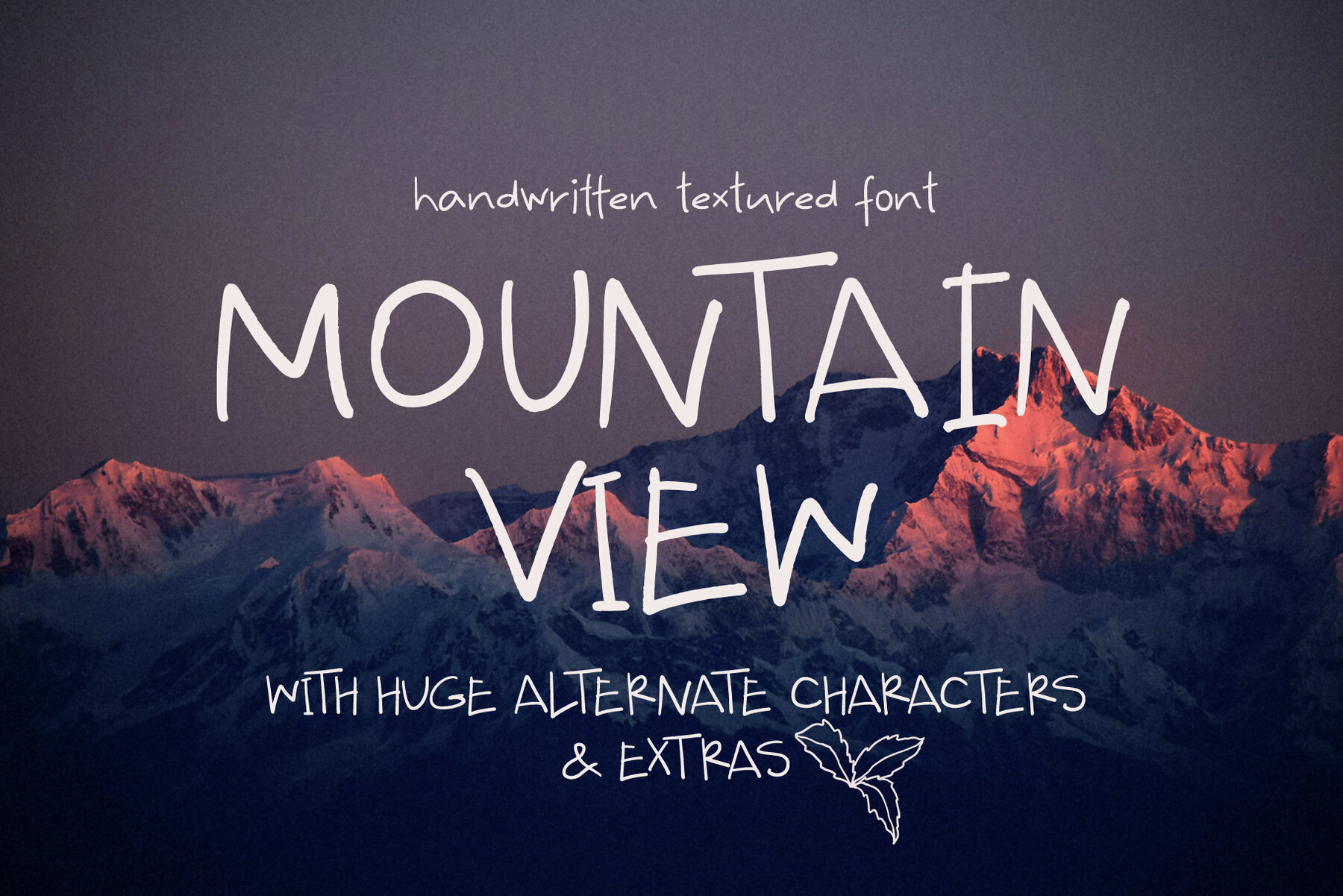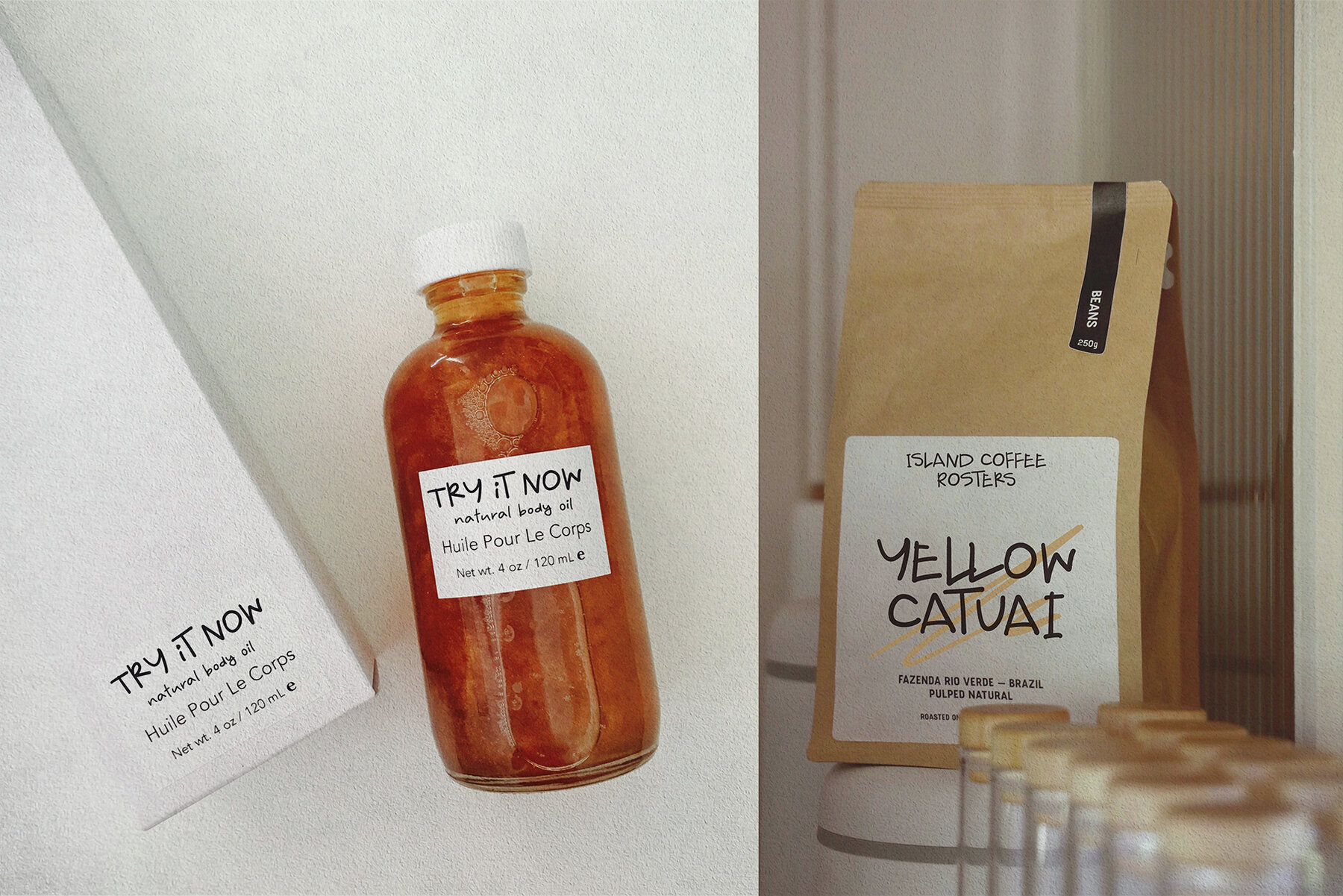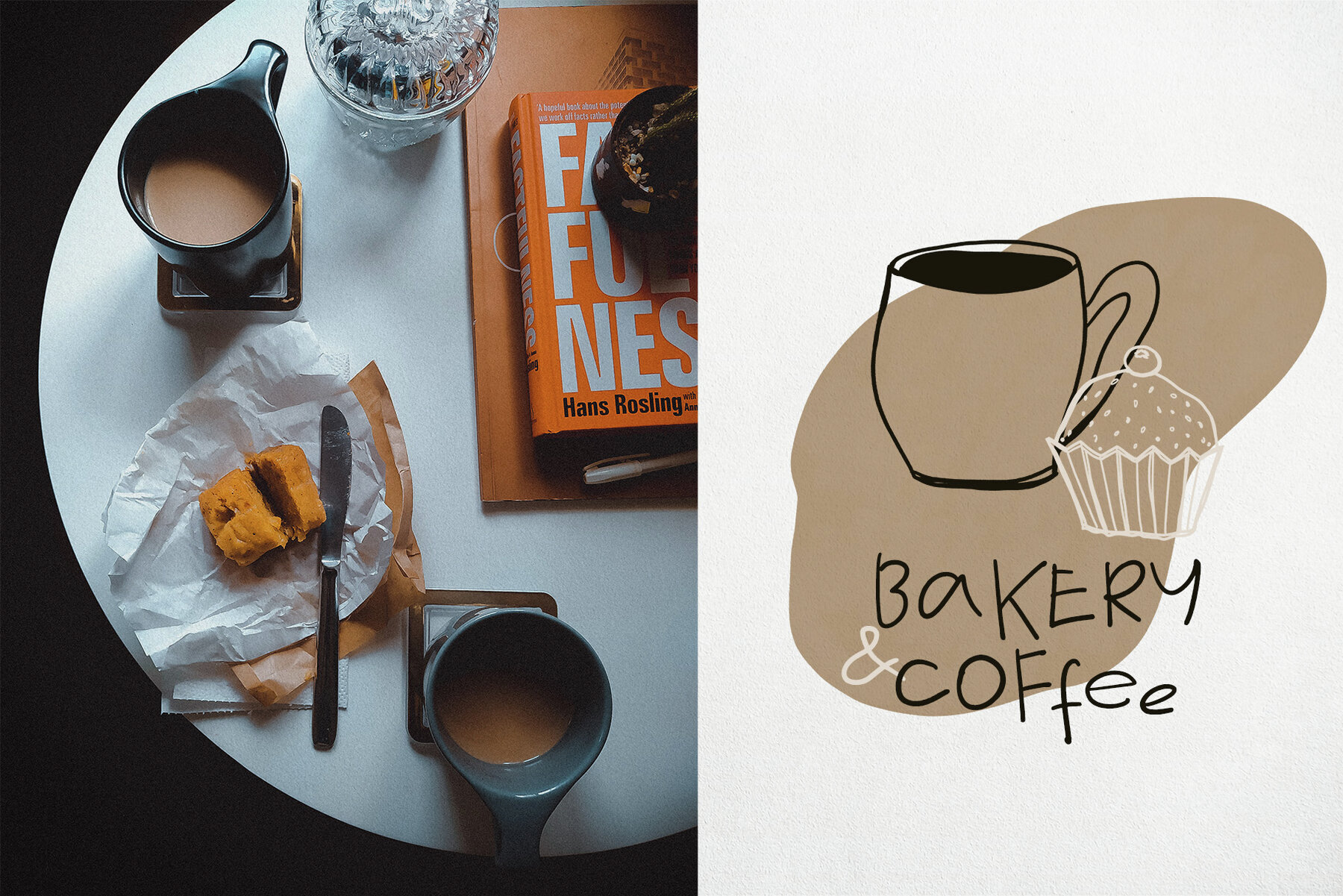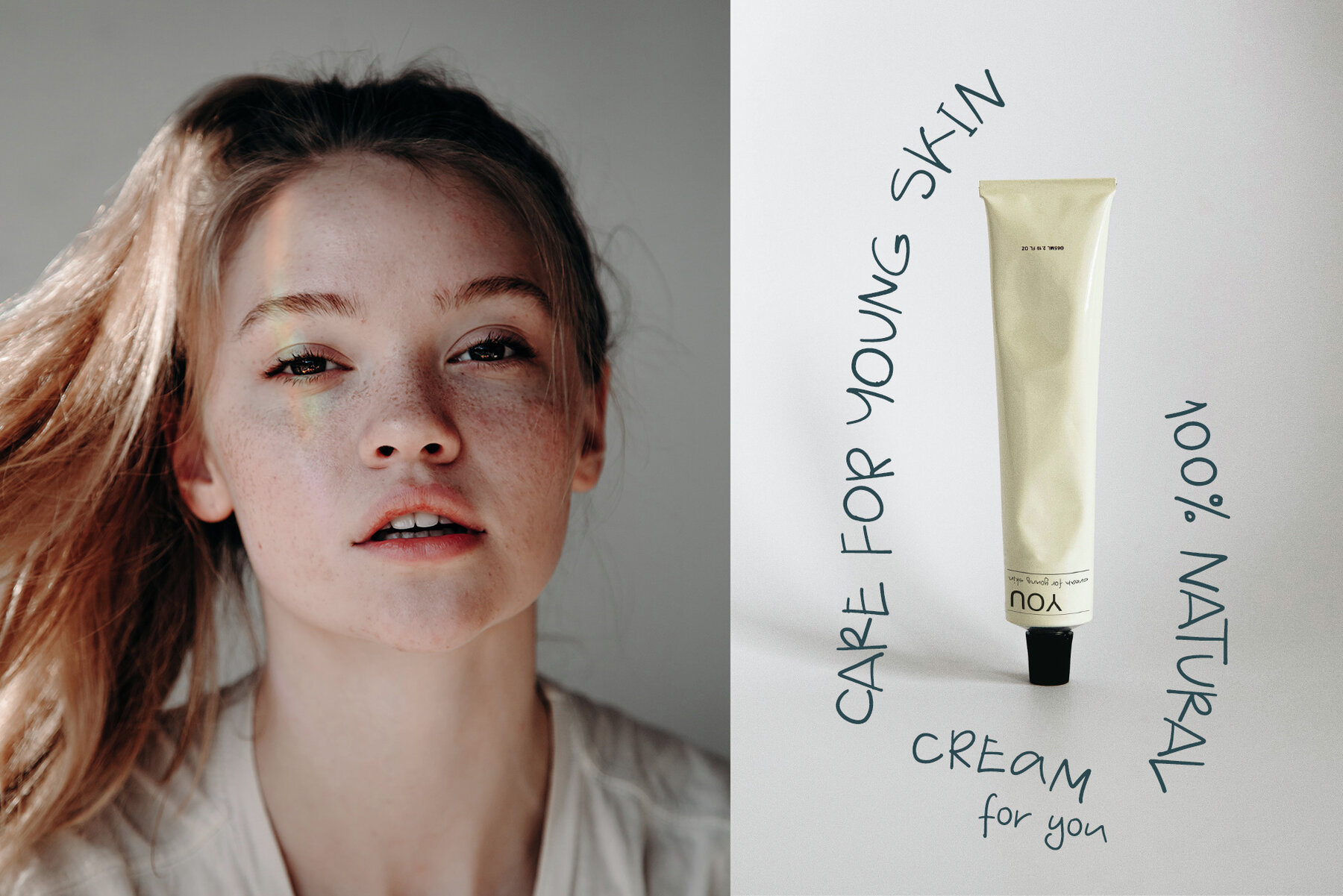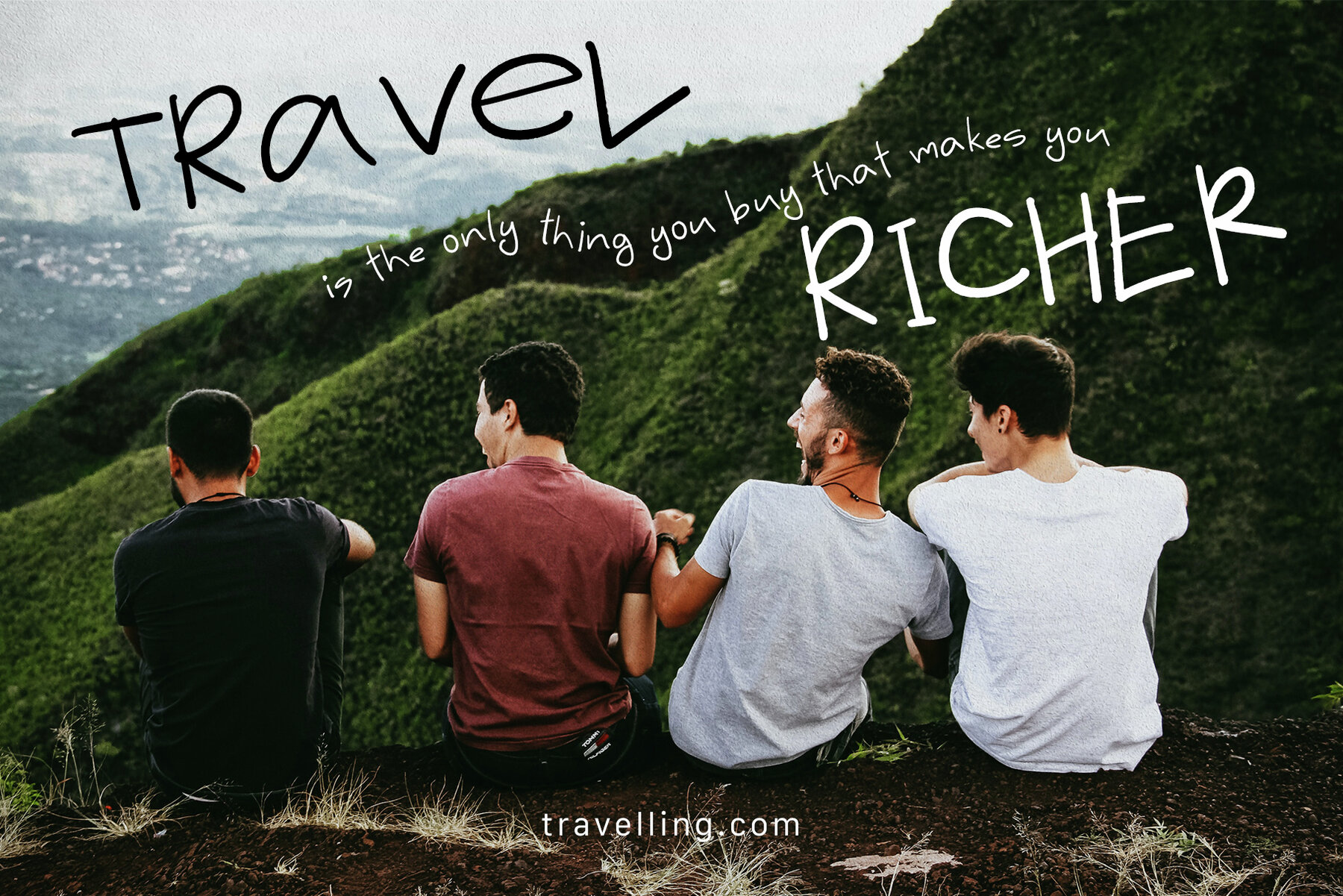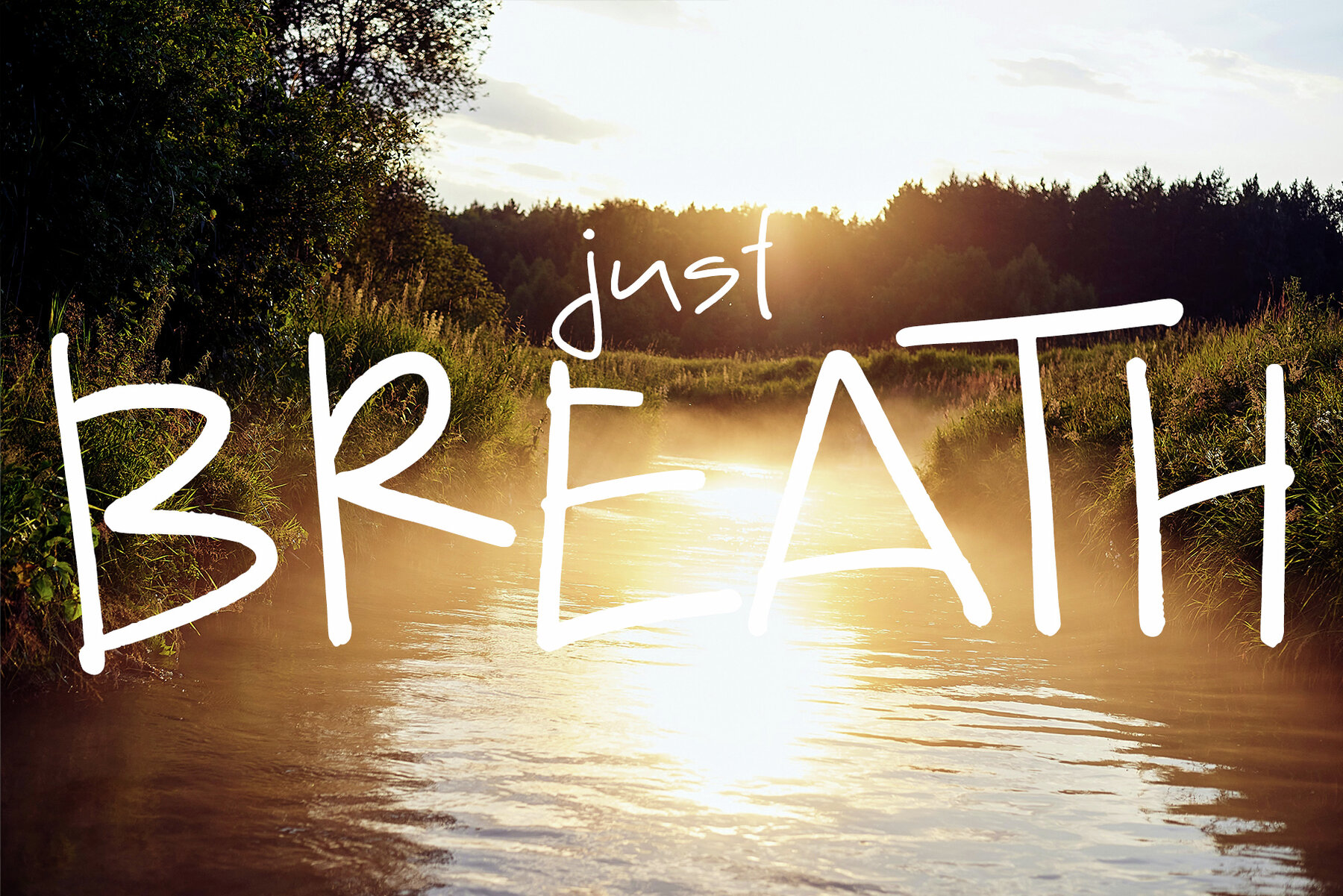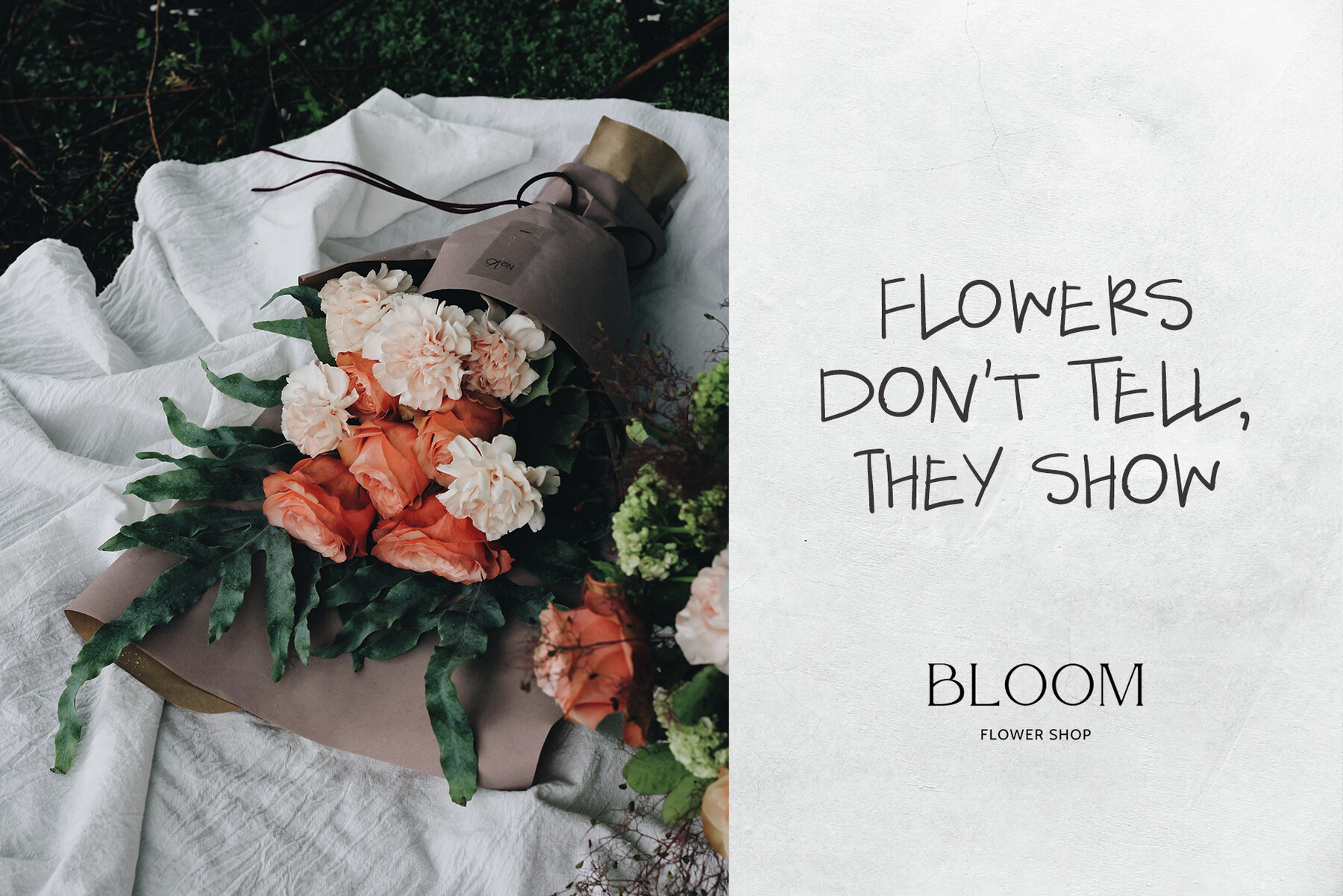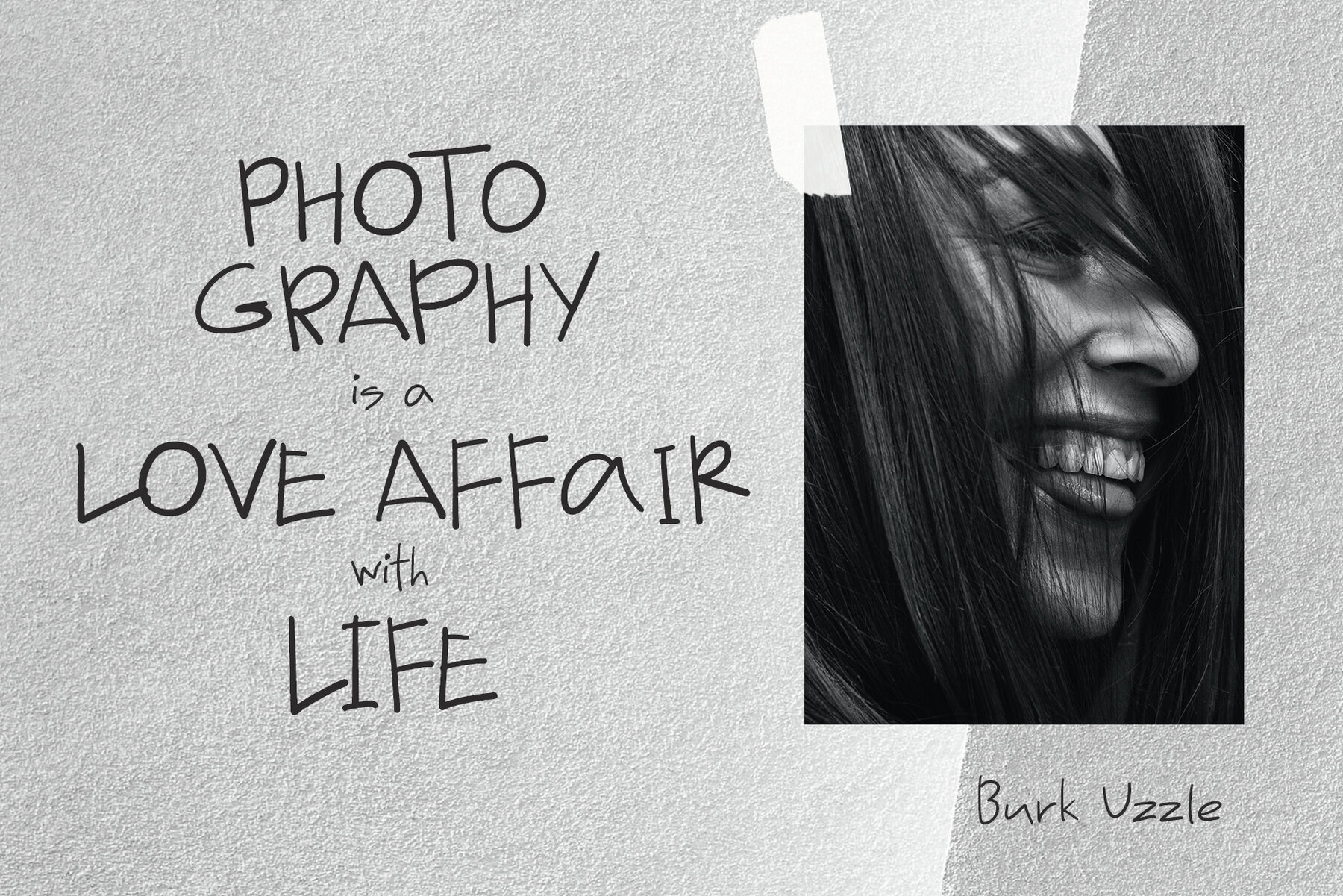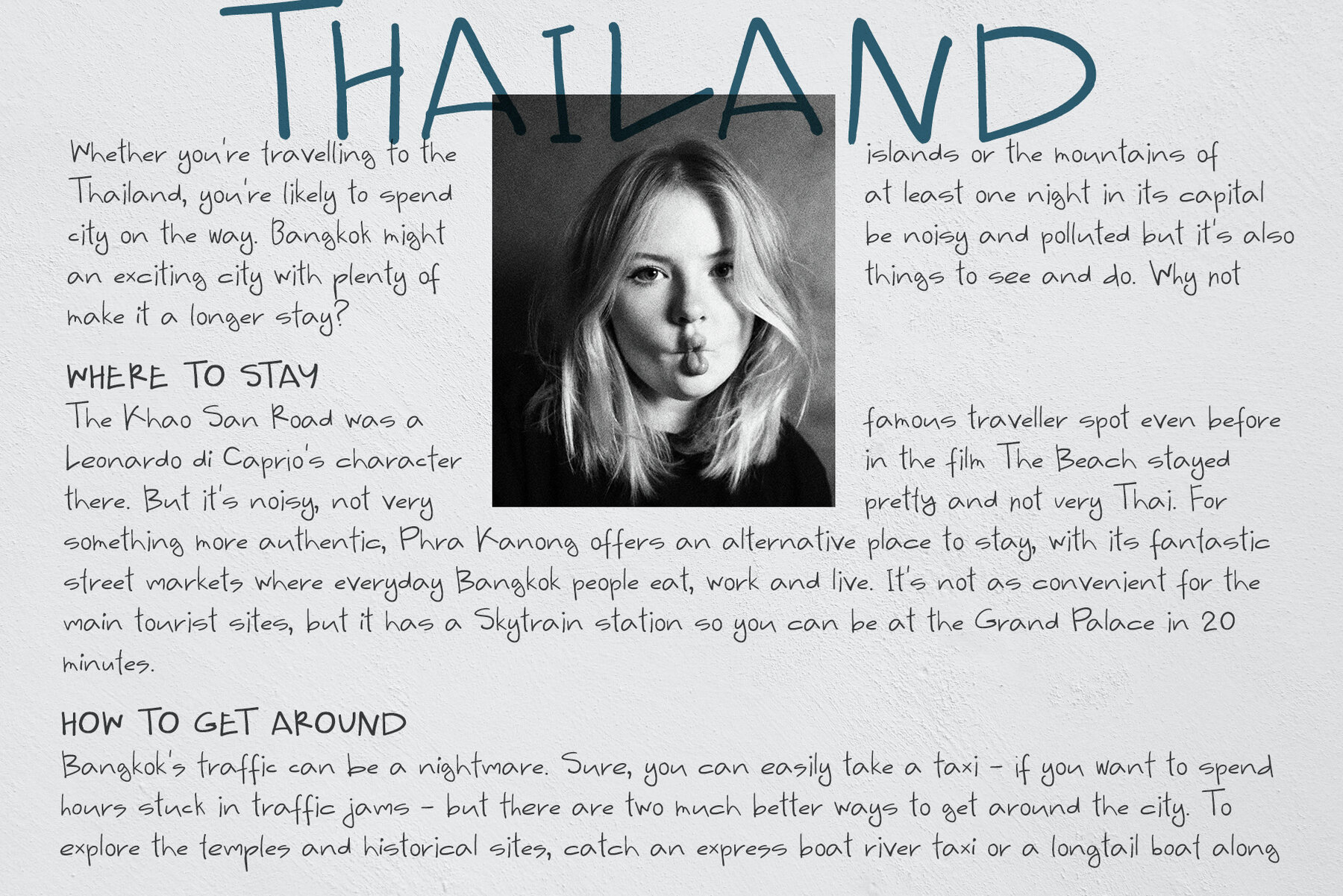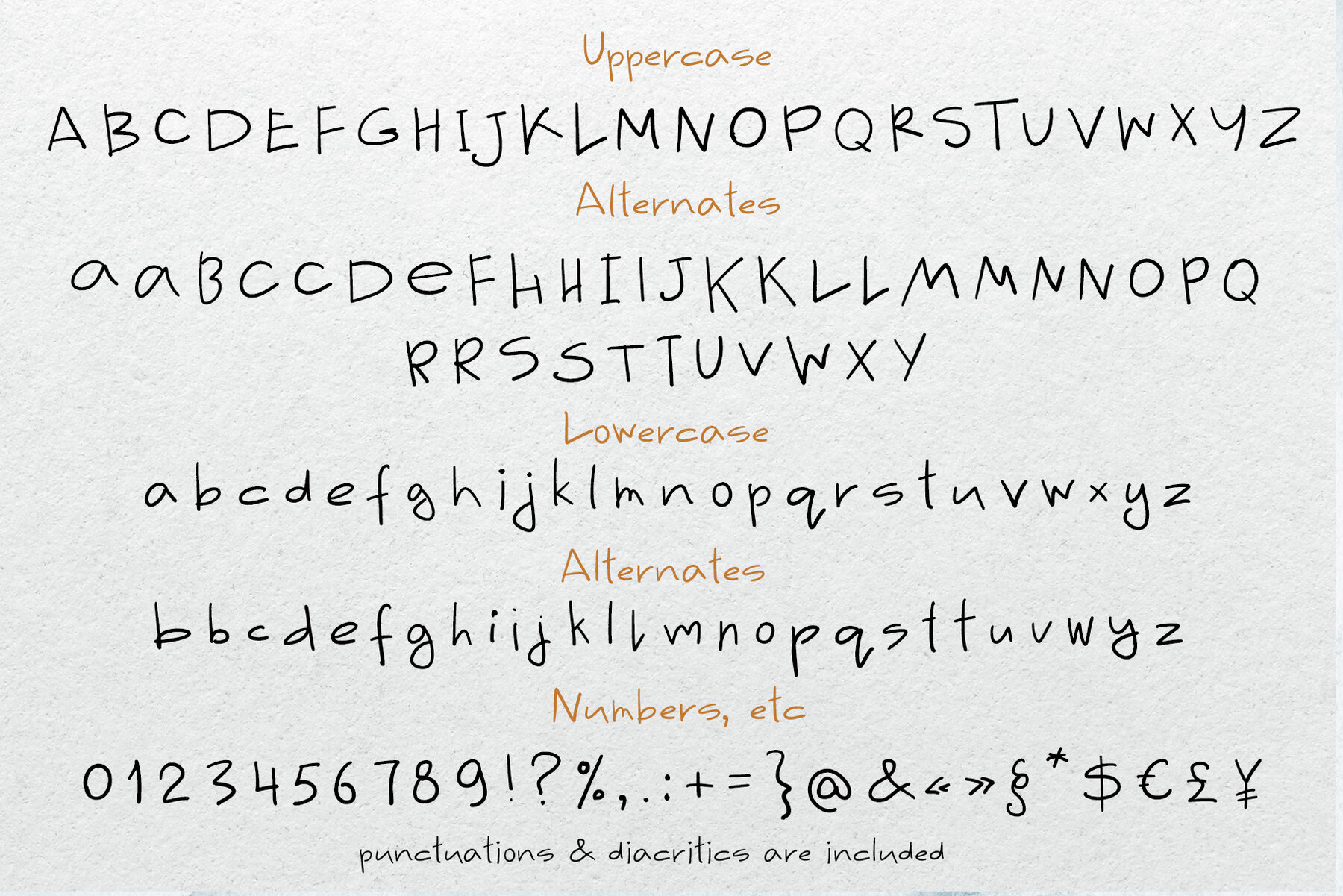
Mountain View Font
Discover 'Mountain View,' a unique handwritten font crafted with a textured marker brush. The playful, slightly unpredictable structure of its letters—with occasional overlaps—adds a distinct charm. Ideal for enriching design projects, it features decorative elements and offers stylistic alternatives for both uppercase and lowercase letters. Enhance your creations with its ligatures and intricate illustrations of food and flowers, perfect for logos, packaging, and more.Mountain View Typeface